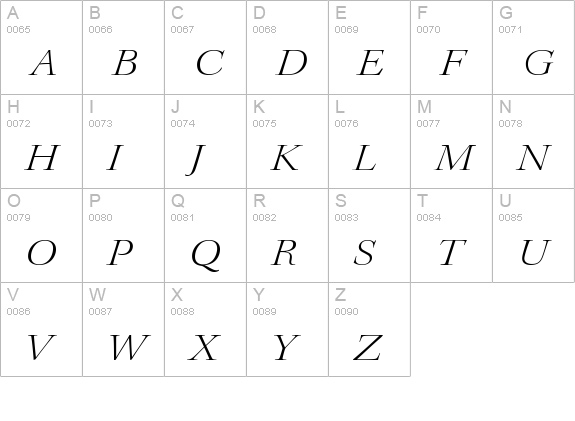
Kepler Std Light Extended Italic Display Font Details
Kepler Std Light Extended Italic Display is a refined, elegant, extended-width, italic variant in the Kepler typeface family \xE2\x80\x94 well suited to elegant body text, refined sub-headings, and luxury branding.
Kepler Std Light Extended Italic Display font is a visually stunning and modern typeface that adds a touch of elegance to any design project. Its extended form gives it a unique and eye-catching appeal, making it perfect for headlines, titles, and display purposes. The delicate italic slant of this font adds a sense of sophistication and grace to your text, creating a sense of movement and fluidity. Its light weight allows for clear legibility while maintaining a delicate and refined appearance. This font is a versatile choice for a wide range of design projects, including branding, packaging, advertising, and more. Its clean and crisp lines make it suitable for both print and digital applications, ensuring that your message is conveyed with utmost clarity and style. One of the best things about Kepler Std Light Extended Italic Display font is that it is available for free download at FontsMarket.com. This means that you can easily access and utilize this stunning font in your projects without any additional cost. Its availability as a free font ensures that designers of all levels have access to high-quality typography that can elevate their work to new heights. Whether you are a professional designer or a hobbyist, Kepler Std Light Extended Italic Display font is a valuable addition to your font library. Its captivating design and freely available download make it a must-have for anyone seeking to add a touch of elegance and sophistication to their designs. Don't miss out on this opportunity to enhance your creative projects with this remarkable font.